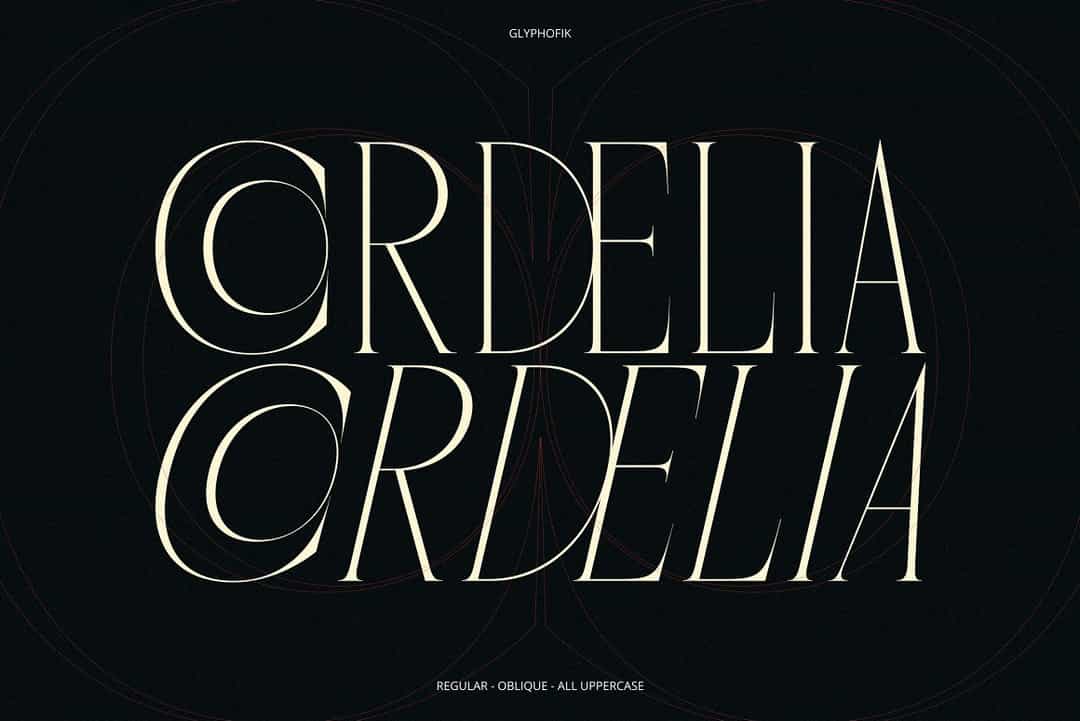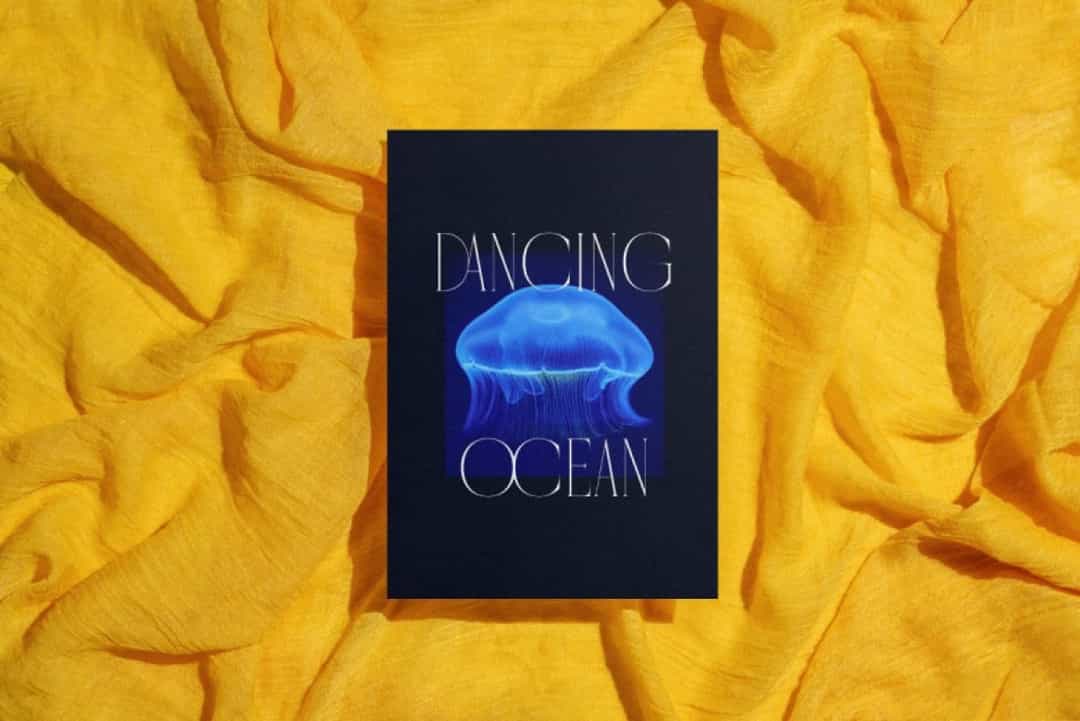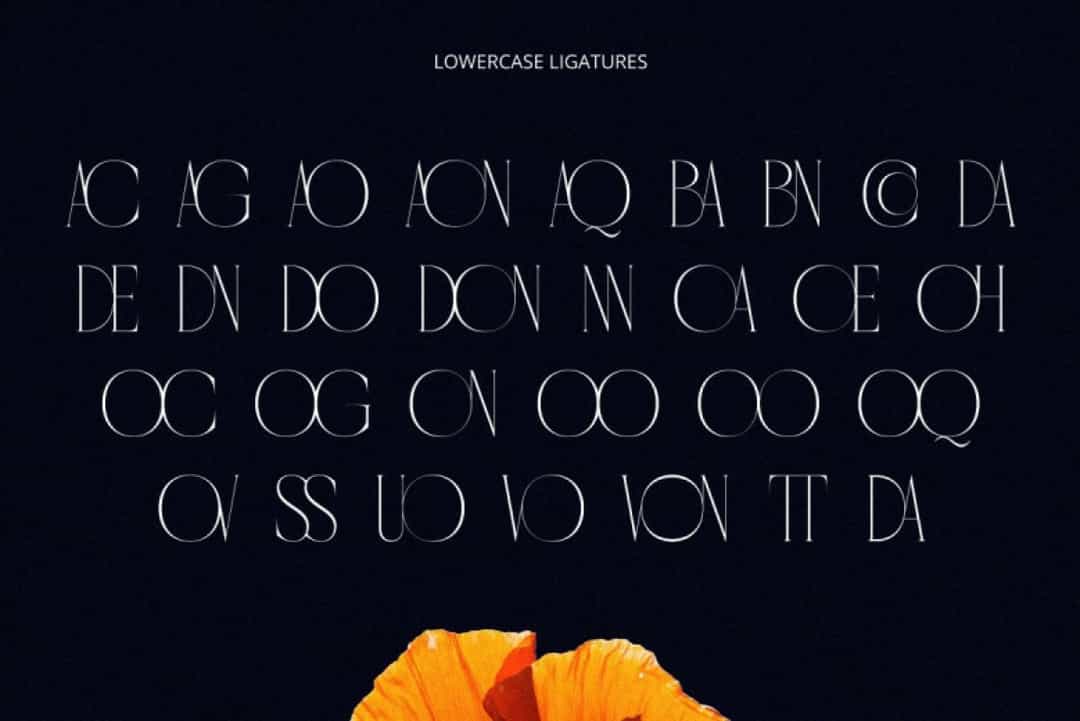
Cordeliais an exquisite display serif font that beautifully blends elements of both old and modern serif designs for an engaging graphic experience. Perfect as a logo, short phrases or other designs with an elegant aesthetic.